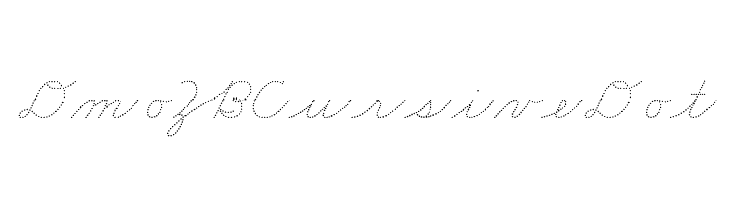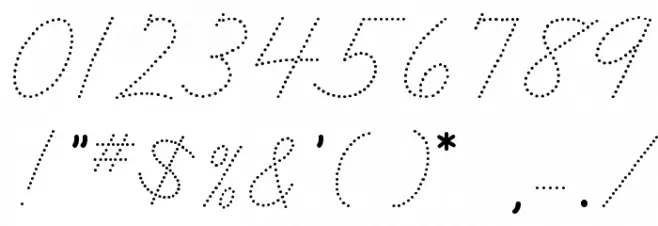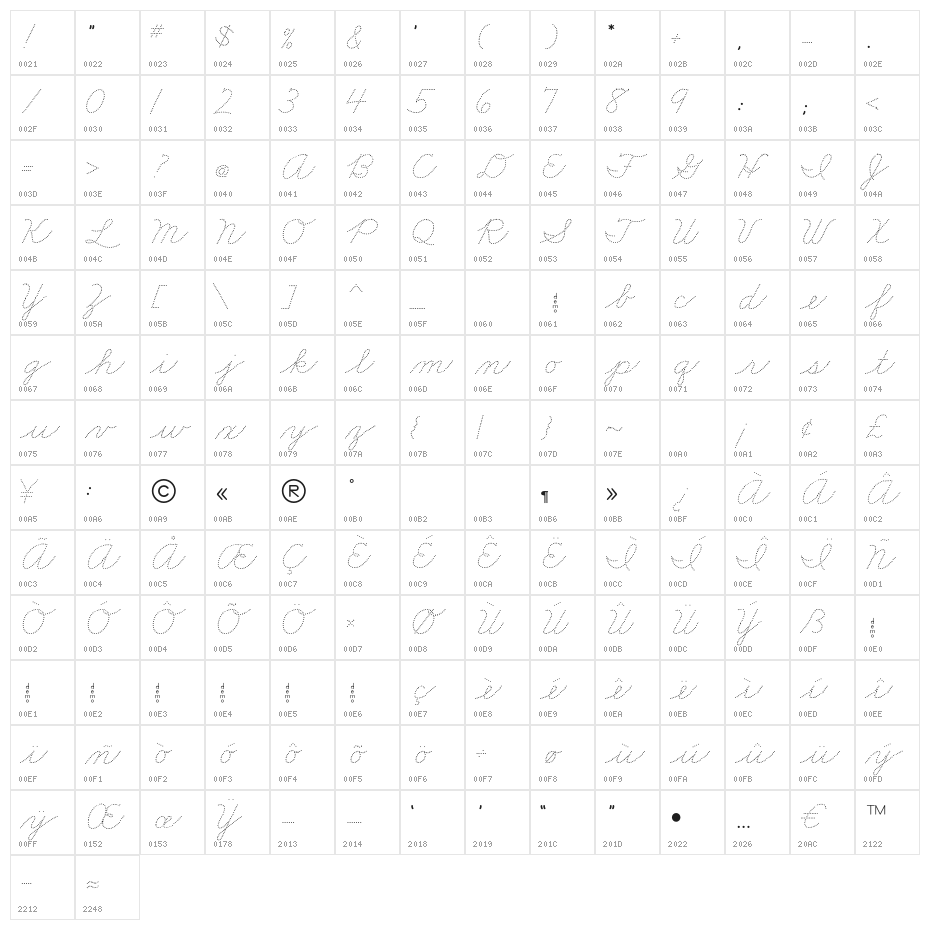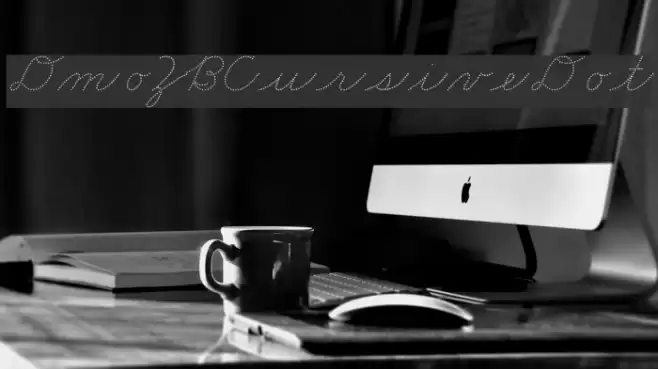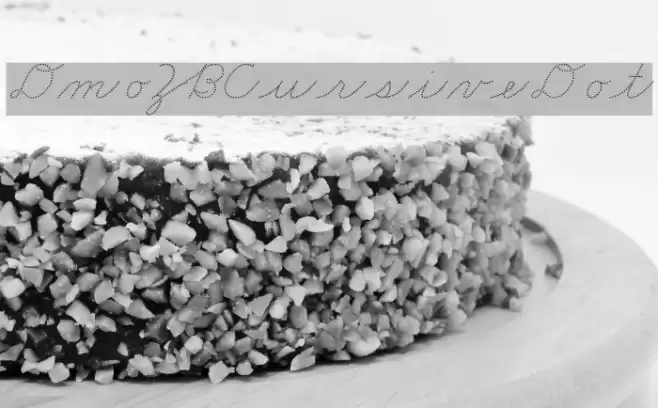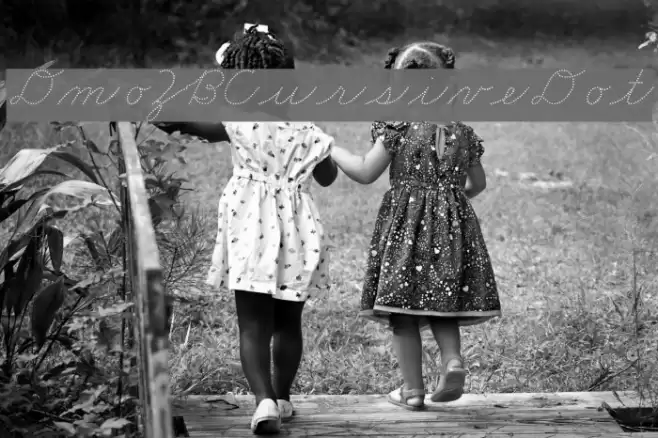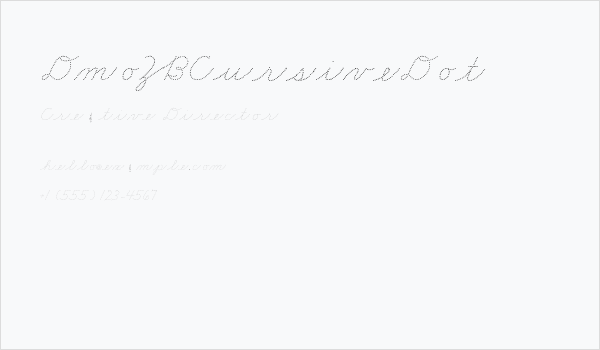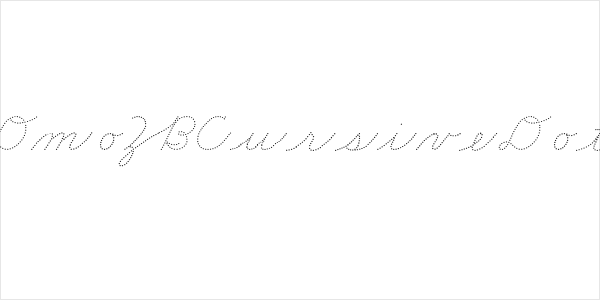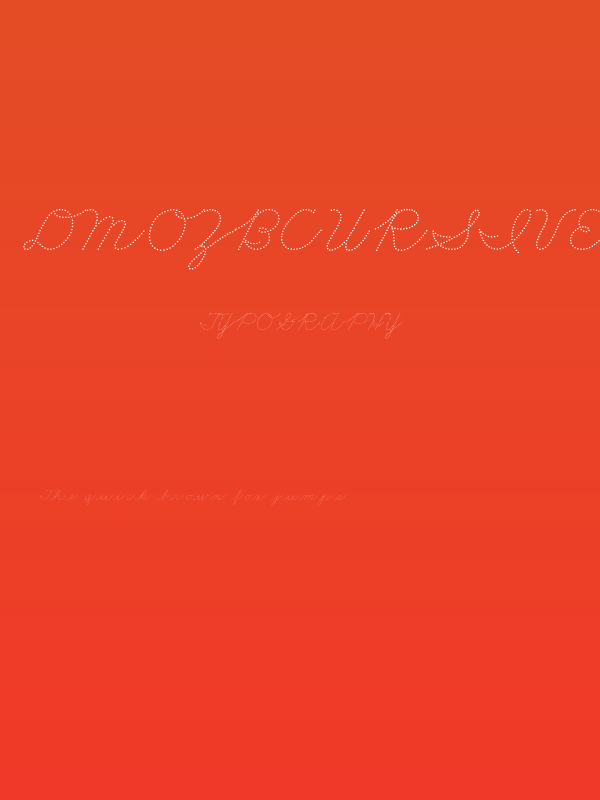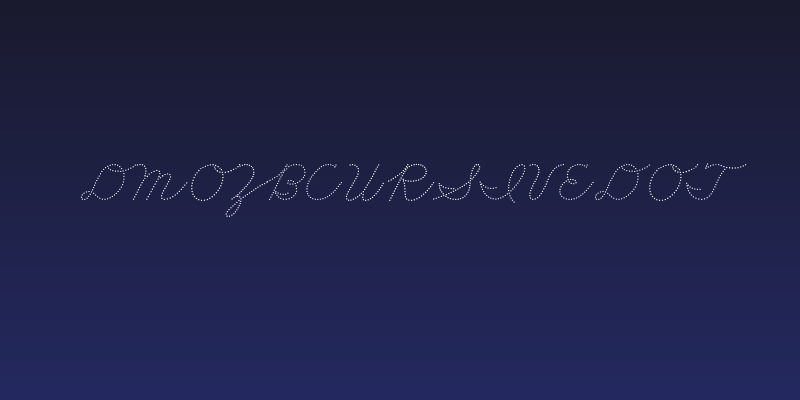
DmoZBCursiveDot Font
DmoZBCursiveDot Description
This font features a unique dotted cursive style, where each character is composed of evenly spaced dots forming elegant, flowing letters. The uppercase and lowercase alphabets maintain a consistent slant, enhancing the cursive appearance. Numbers and special characters follow the same dotted pattern, ensuring uniformity across all glyphs. The design is playful yet sophisticated, making it suitable for creative and artistic projects. The font's dotted structure adds a whimsical touch, ideal for designs that require a light-hearted or informal feel.
| Proposed Projects | Ideal for greeting cards, children's books, playful branding, and artistic invitations. |